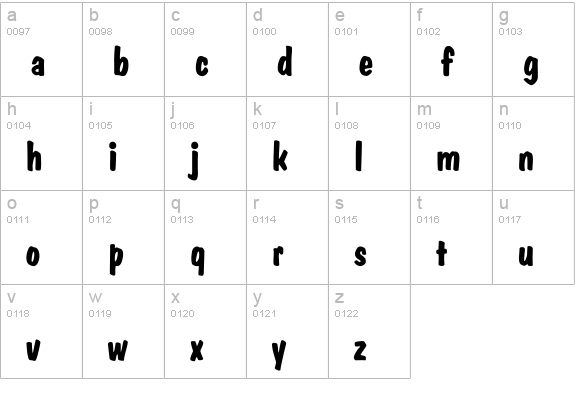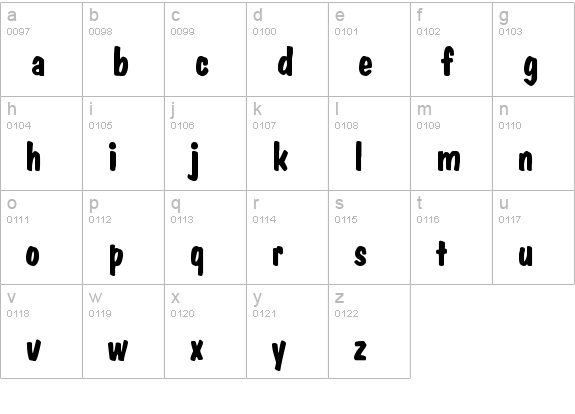
DomCasual-Bold Font Details
DomCasual-Bold is a strong, high-contrast variant in the DomCasual typeface family \xE2\x80\x94 well suited to headlines, attention-grabbing titles, and strong calls-to-action.
DomCasual-Bold is a visually stunning and highly versatile font that exudes an air of confidence and modernity. Its bold and dynamic letterforms make a strong statement, perfect for headlines, logos, and any design project that requires a touch of boldness. With its sleek and contemporary style, DomCasual-Bold is sure to catch the eye and leave a lasting impression. The clean lines and precise curves of this font add a touch of sophistication to any design, making it suitable for both professional and creative endeavors. But what sets DomCasual-Bold apart is not just its aesthetics, but also its accessibility. This font is freely available to download at FontsMarket.com, allowing designers and creatives to effortlessly incorporate it into their projects without any added cost. Whether you're designing a poster, creating a brand identity, or crafting a visually striking website, DomCasual-Bold is the perfect choice to elevate your design to new heights. Its versatility and timeless appeal make it a go-to font for any design project, and its availability for free download at FontsMarket.com only adds to its appeal. Download DomCasual-Bold today and unleash your creativity with this stunning and freely accessible font.